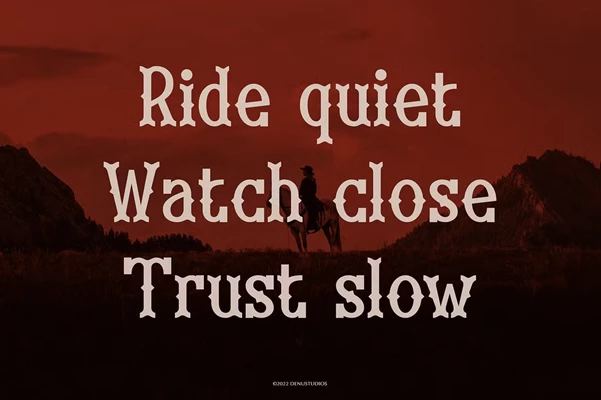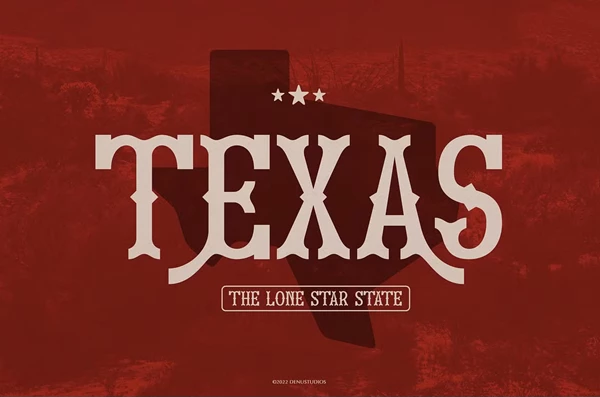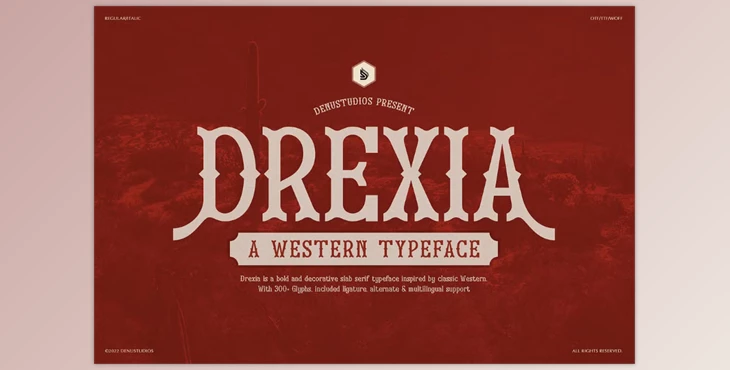
Drexia | Western Typeface:
Drexia is a font type catered for the Western style created by Denustudios and stands out with its versatility fitting for branding, packaging, invitations, and more. The font package has OTF, TTF, and WOFF formats and contains the standard glyphs, alternates, ligatures, and multilingual support.